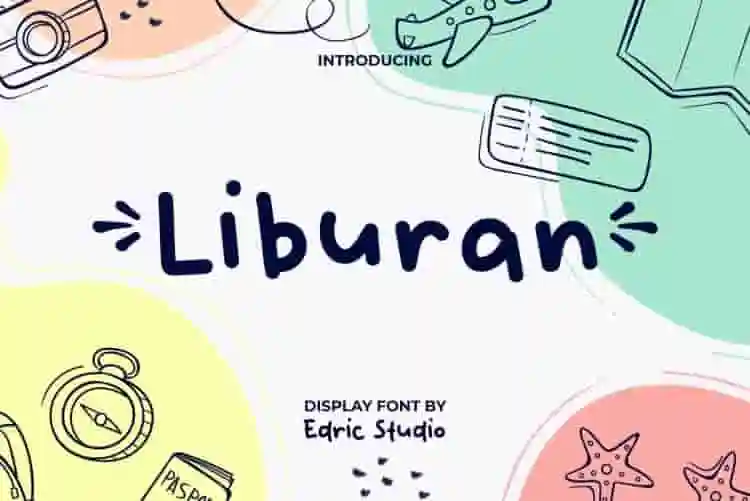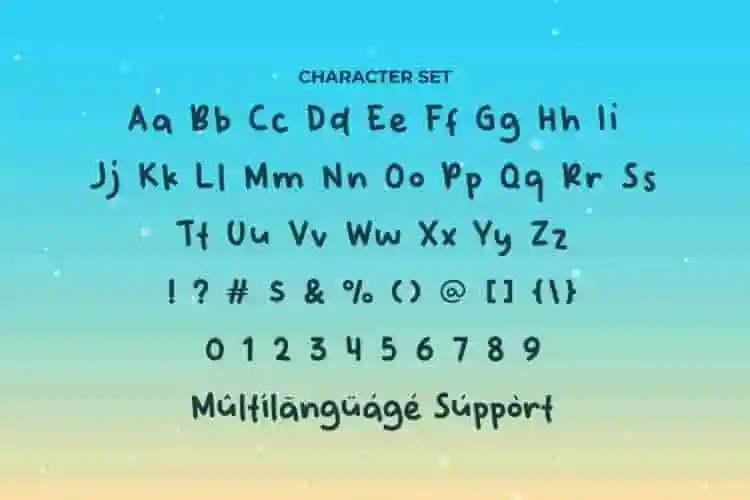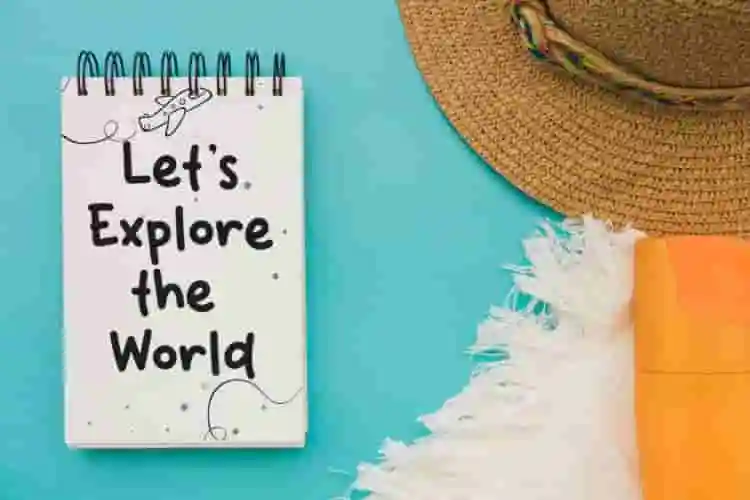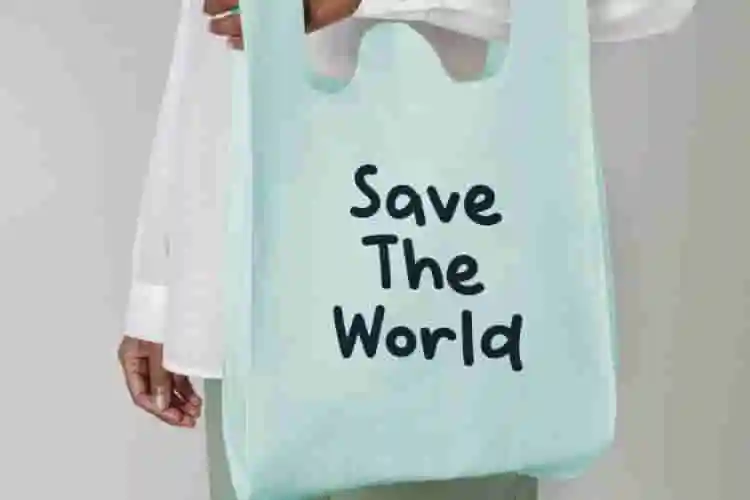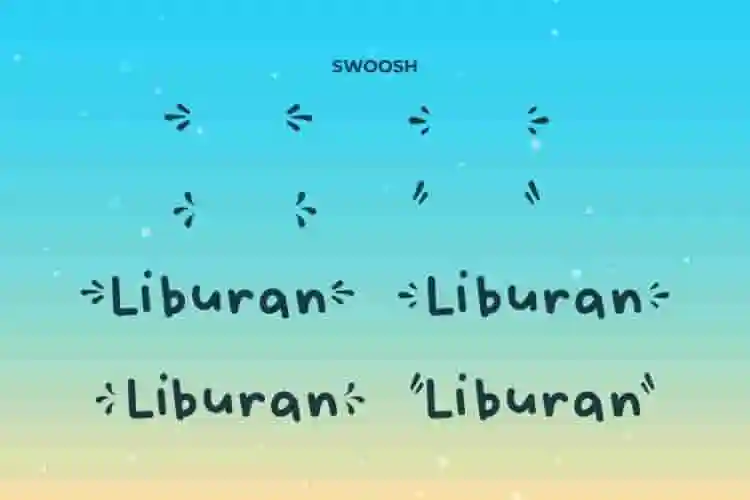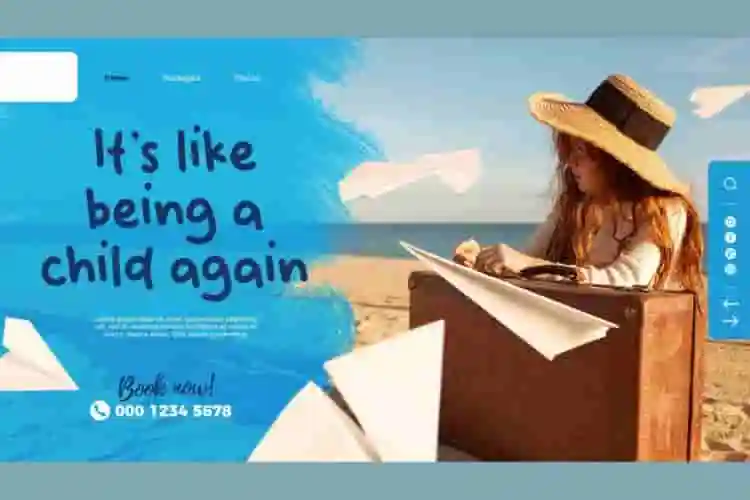
Liburan Font is a funny cheerful display font that carries a holiday theme. Typography that comes with a brush style font will give your project a bold feel and will inspire you to create something fun and unique with your designs, such as apps, billboard, blog, branding, cover, header, label, logos, packaging design, poster, screen print, shirt, signs, stationery, sticker, title, website, word marks, and more.
Liburan Font comes with a full set of Uppercase and Lowercase Basic Characters, Number, Punctuation, Symbol and Swoosh. It is ideal for industries that need a fun and modern feel, such as accommodation, ads, animation, café, comic, content creator, event or festival, fashion, film, graphic design, handicraft, homeware, lodging, movie, photography, playground, printing, publishing, retail, travel, vacation, and anything that requires the appearance of a fat rounded corners font.
Say hello to Liburan, a cheerful and playful display font inspired by the joy of holidays, beaches, and sunshine-filled adventures. With bold, rounded letters and a breezy personality, Liburan brings an instant feeling of freedom, fun, and summer vibes to your design.
Introducing Liburan, a lively and colorful display font that captures the joyful spirit of holidays, sunshine, and sandy feet. With playful curves and bold shapes, Liburan brings instant energy to any design, making it the perfect typeface for everything from beach party flyers to souvenir packaging.
- Playful Letterforms
- Perfect for Summer & Travel